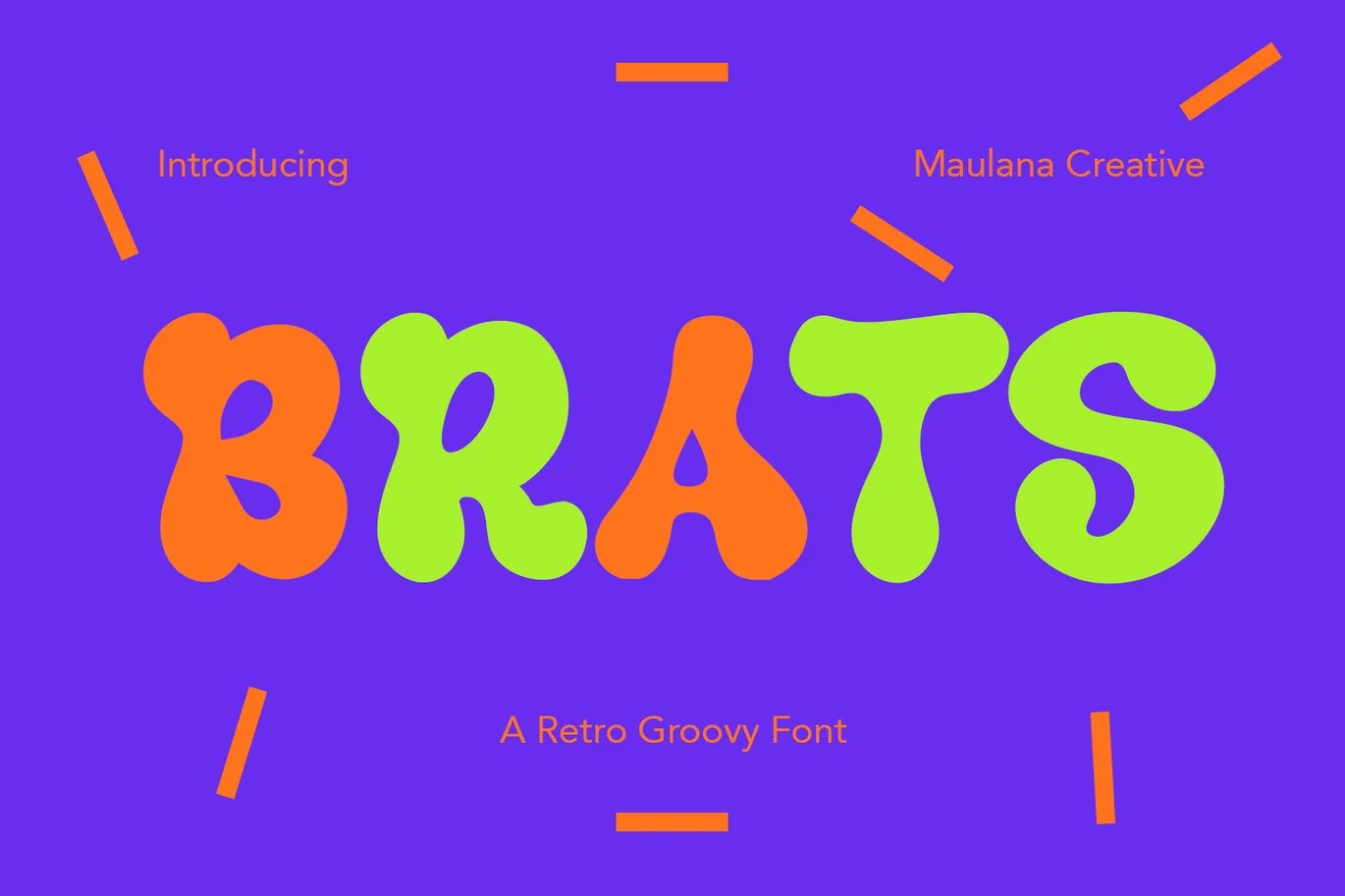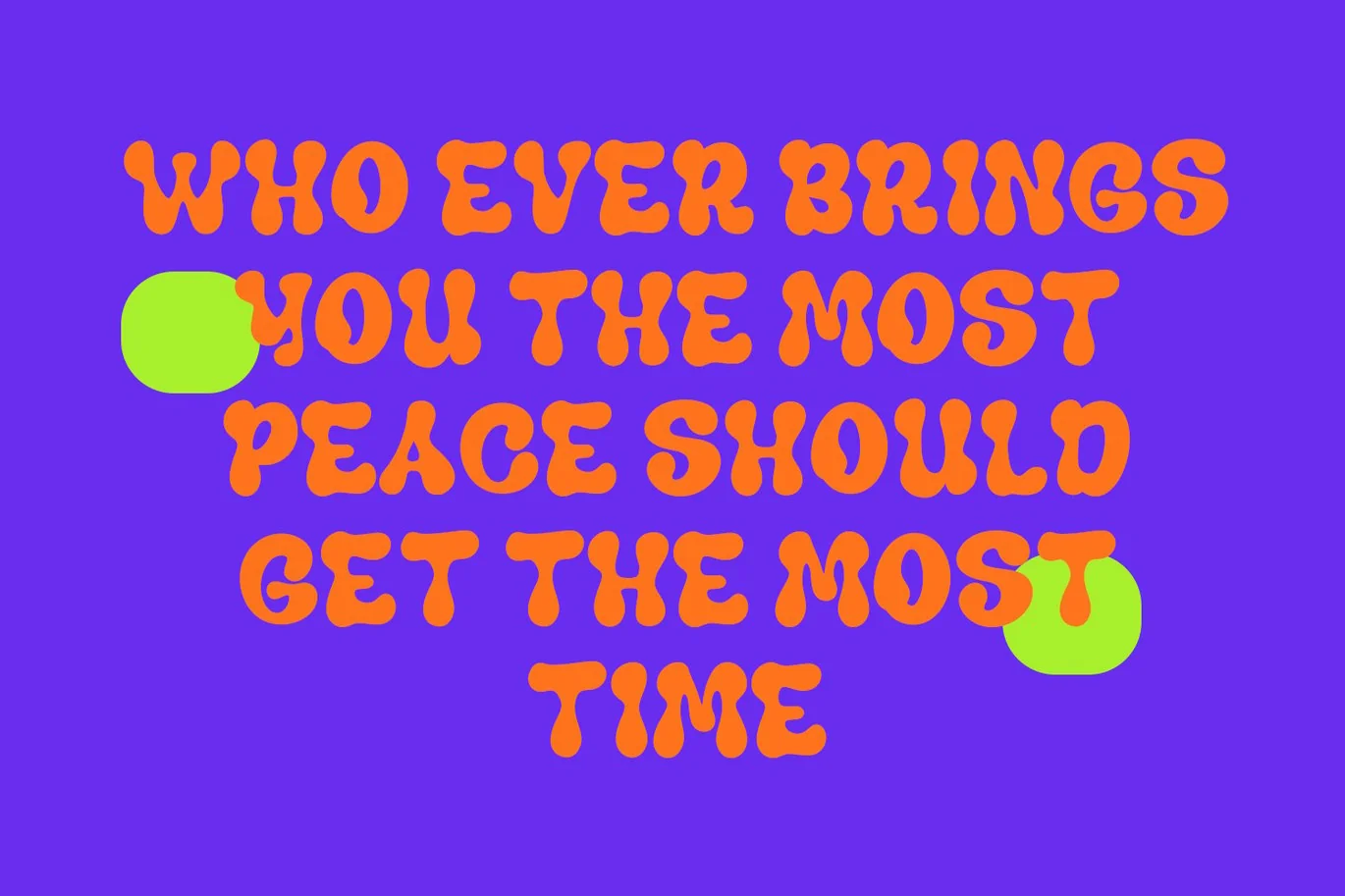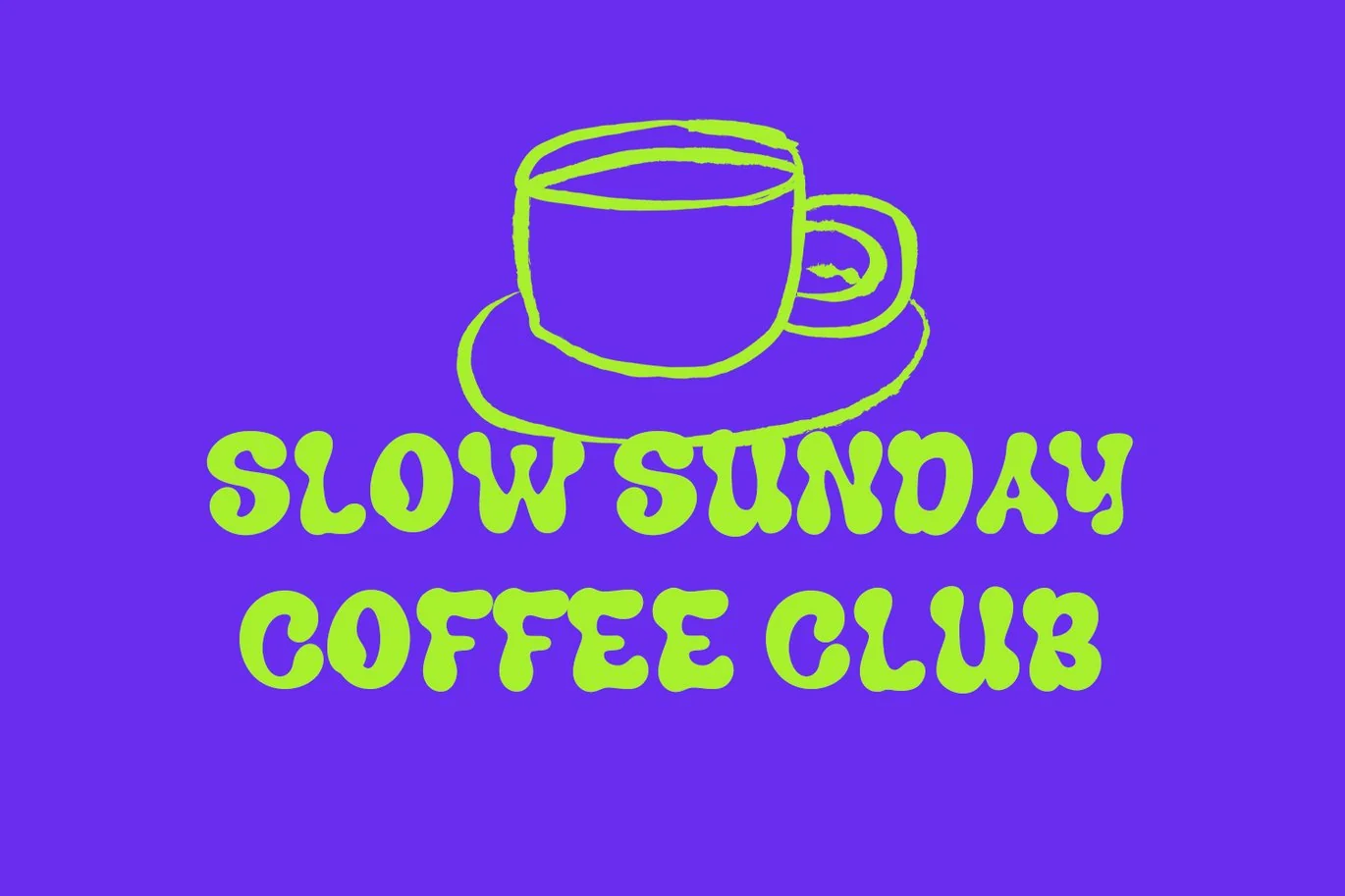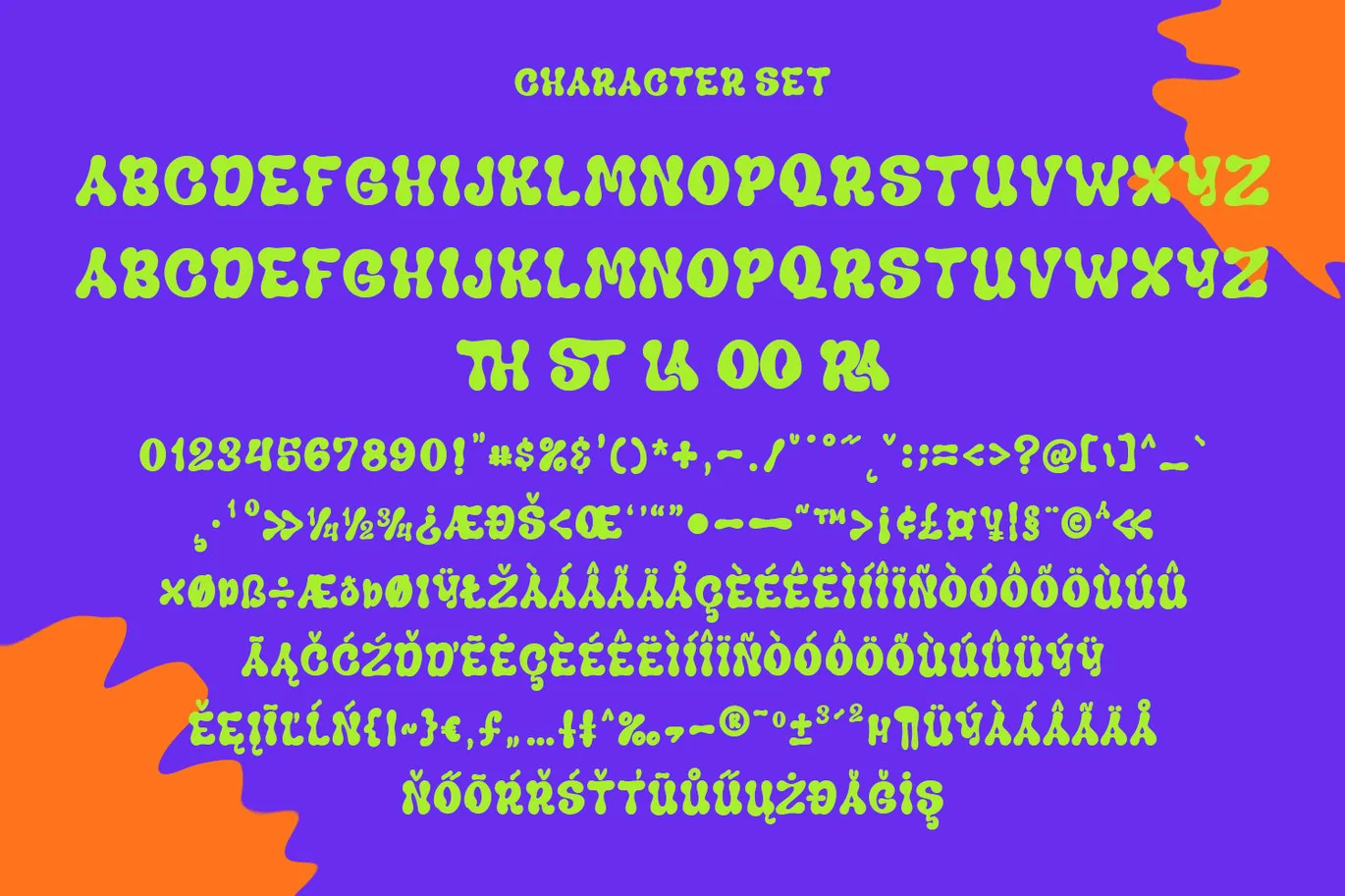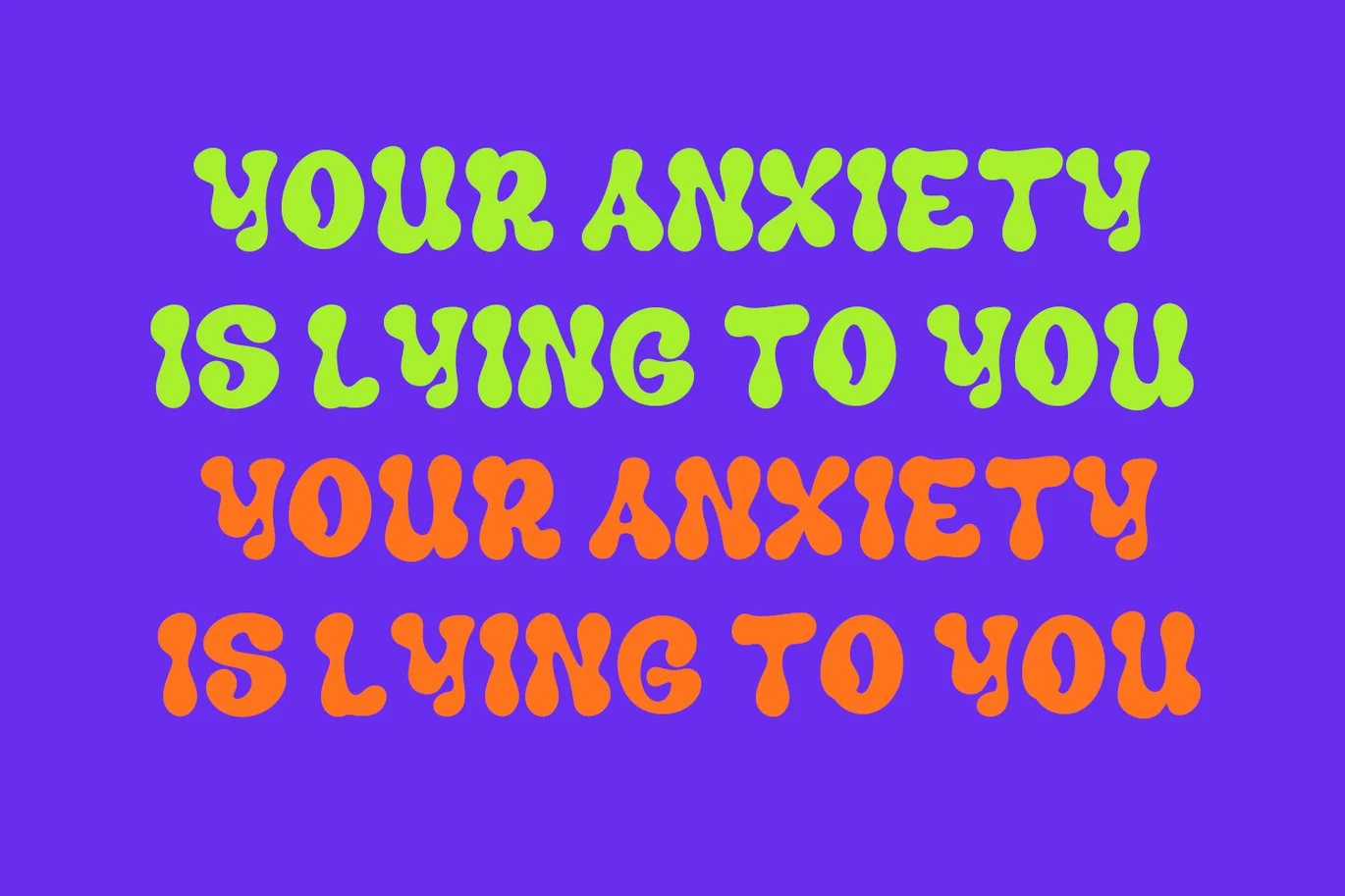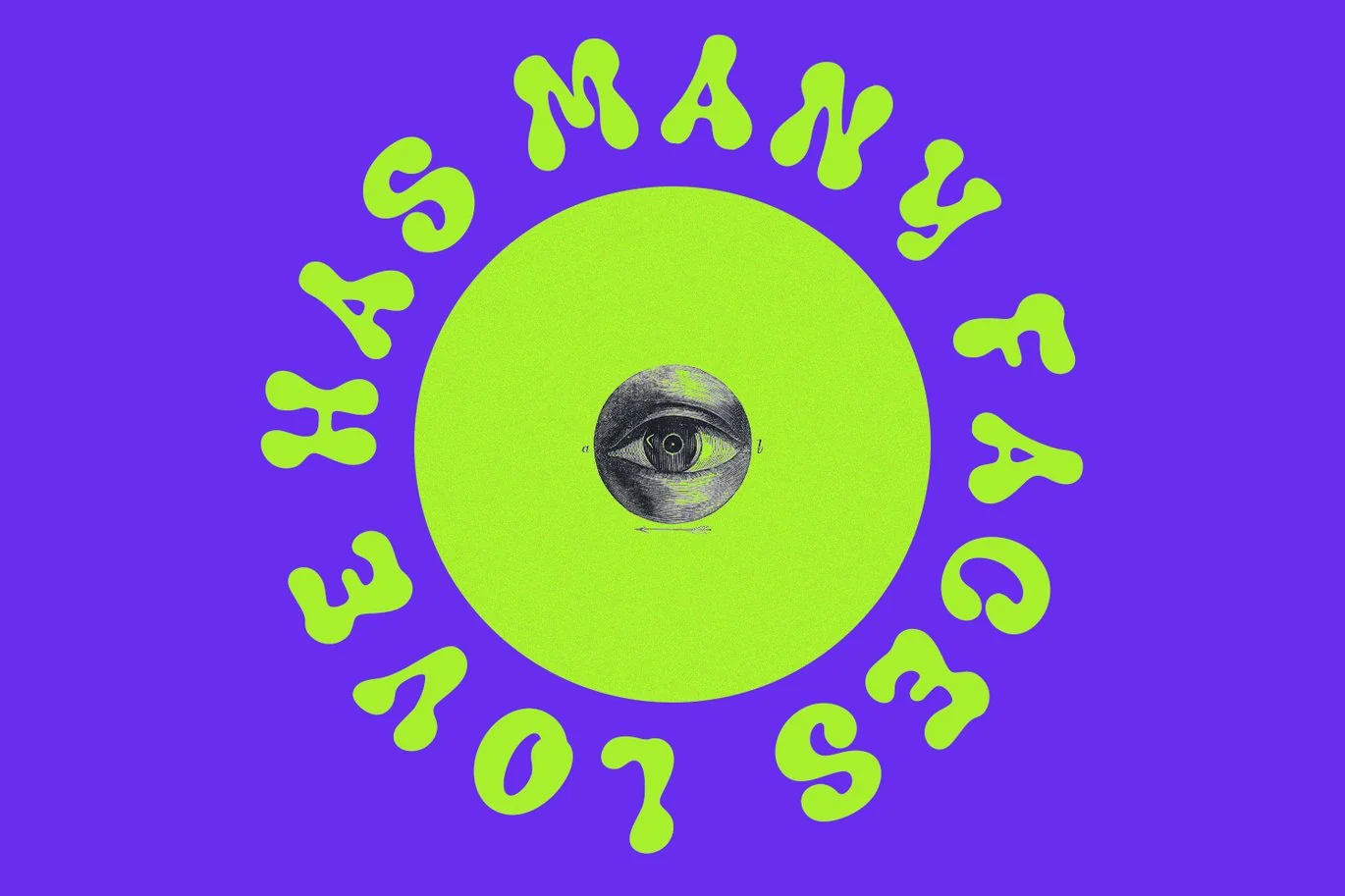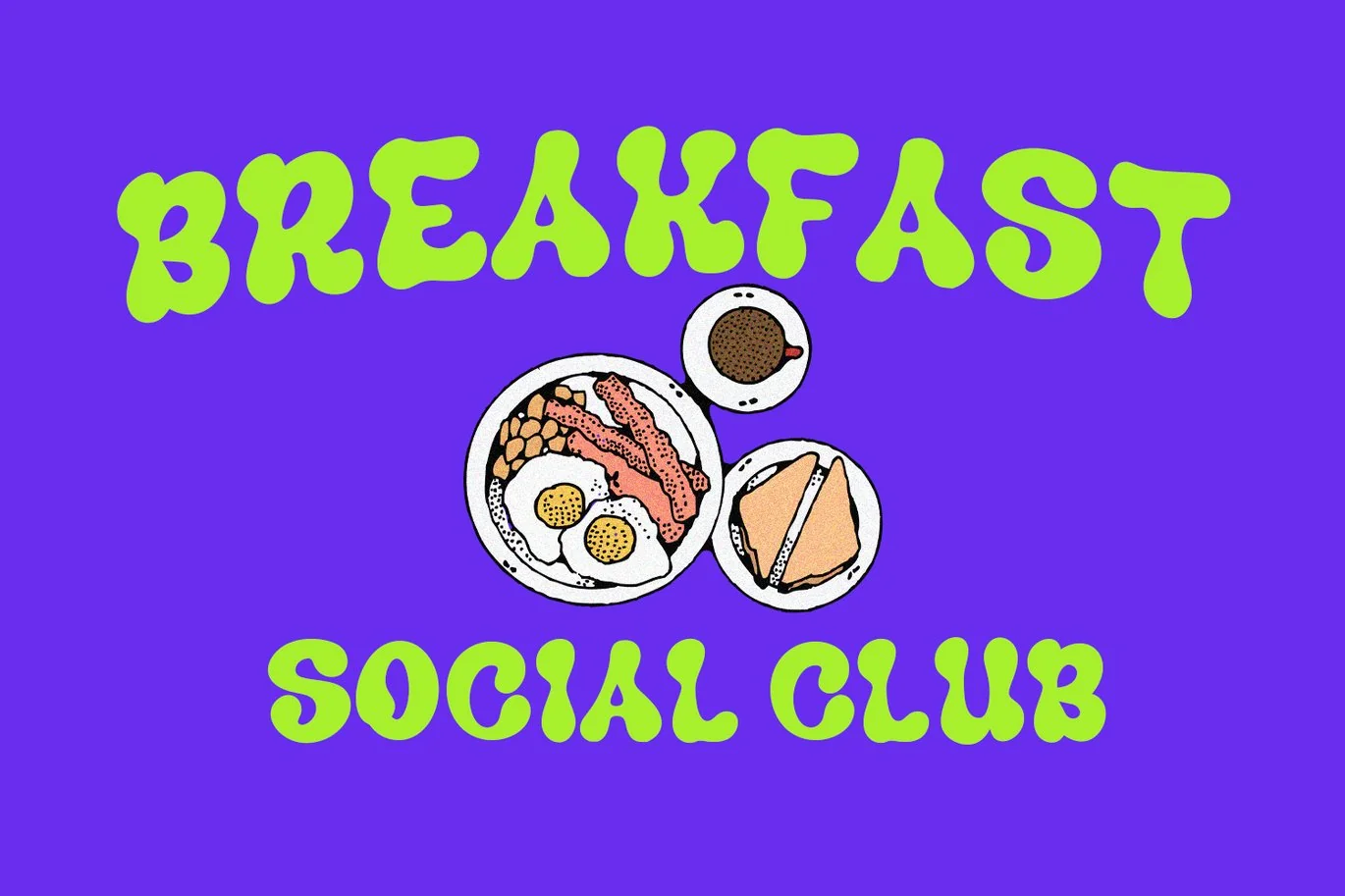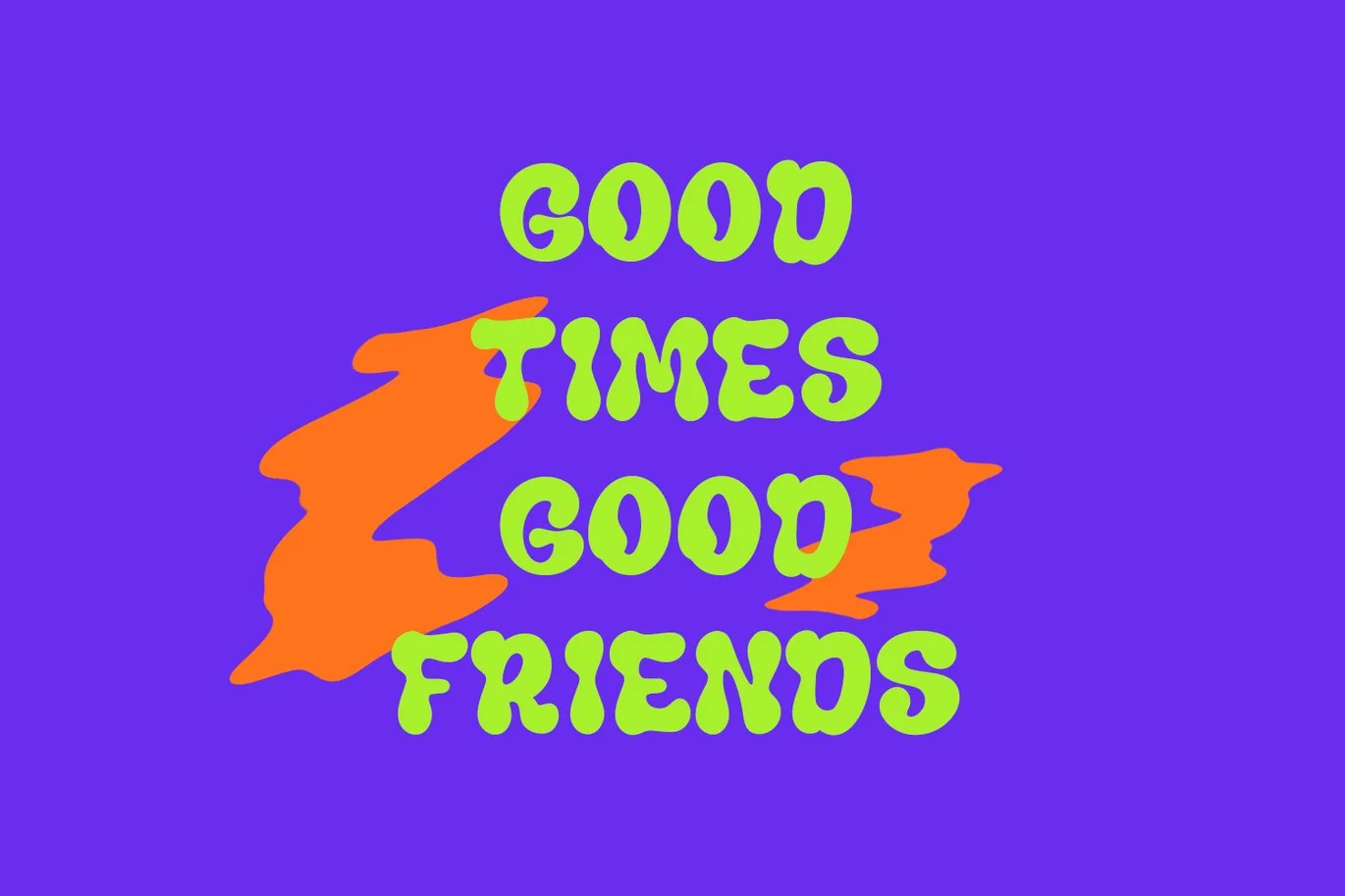
Brats Retro Groovy Handwritten Display Font
Brats is a decorative hand-written display font. With wavy bold stroke, fun character with a bit of ligatures and alternates. To give you an extra creative work. Brats font support multilingual more than 100+ language. This font is good for logo design, Social media, Movie Titles, Books Titles, a short text even a long text letter and good for your secondary text font with sans or serif. Make a stunning work with Brats font.